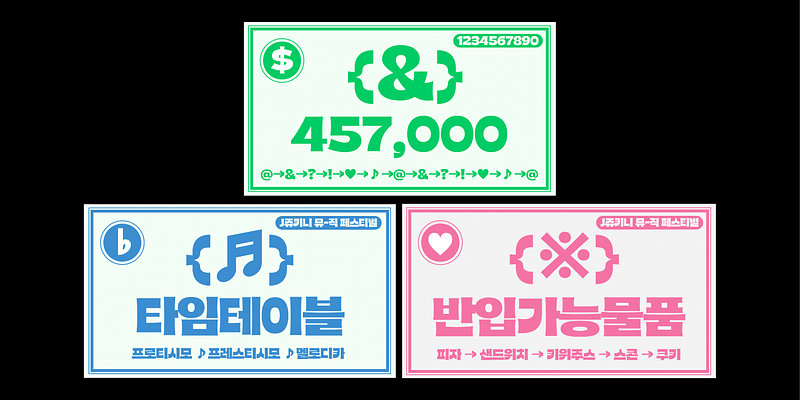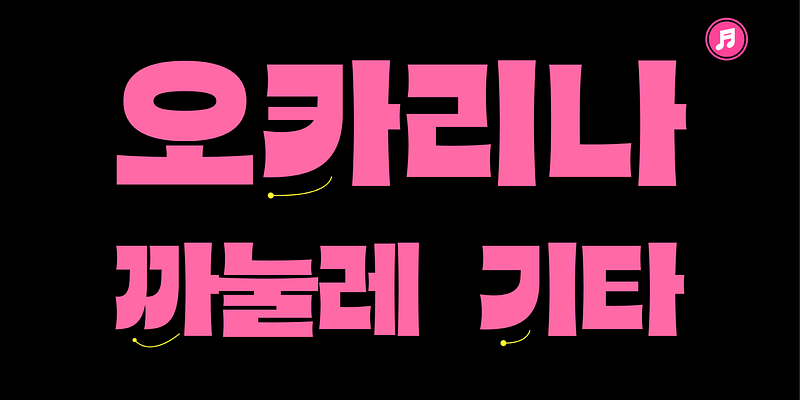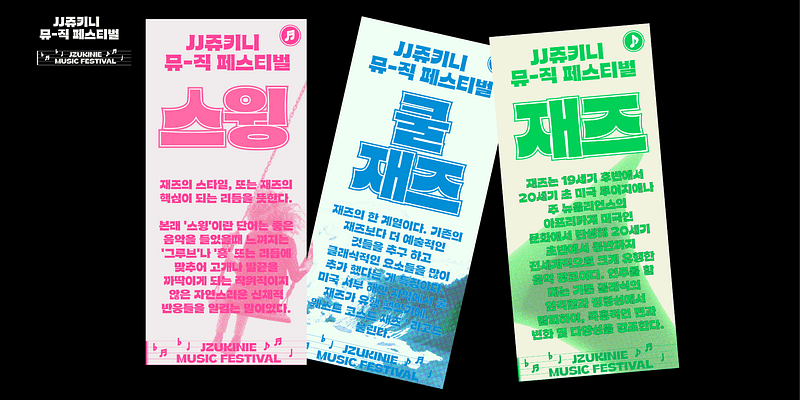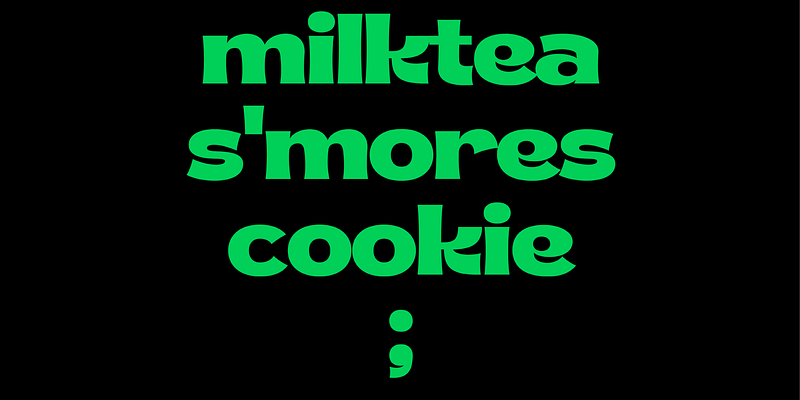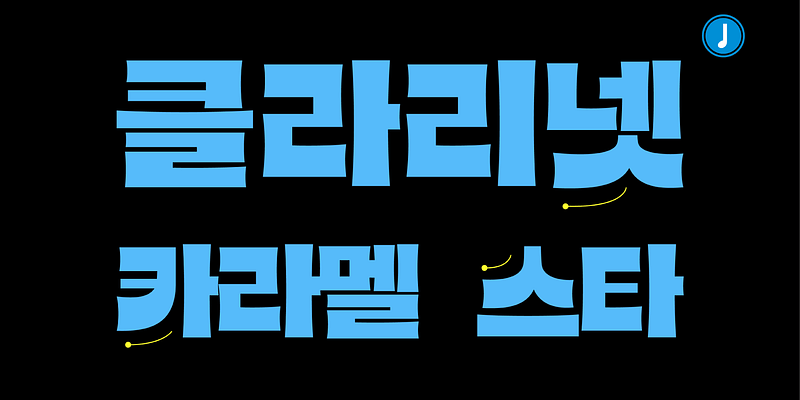
JJZukinie is a headline typeface that feels heavy with a square-framed filled with grapheme and thick and hard strokes. The name Zucchini fits well because it resembles a zucchini, which has a hard yet soft curve. It is a thick weight graphic font that shows strong attention, personality, and trendiness, and can be used from large headline to title size.The most distinctive feature of JJZukinie is the concaveness of the stroke, the asymmetry of ㅅ,ㅈ,ㅊ,ㅆ,ㅊand the bold extending curve at ㄱ,ㅋ,ㅟ,ㅝ. The concave strokes show interesting contrasts of heavy, regular, and thin stroke. By modularizing the changing stroke thickness for each group shape, the concept of distribution and stroke contrast is effectively maintained within the character with more strokes. Please find hidden glyph in JJZukinie. You will find basic ‘&’ and unique ‘&’.